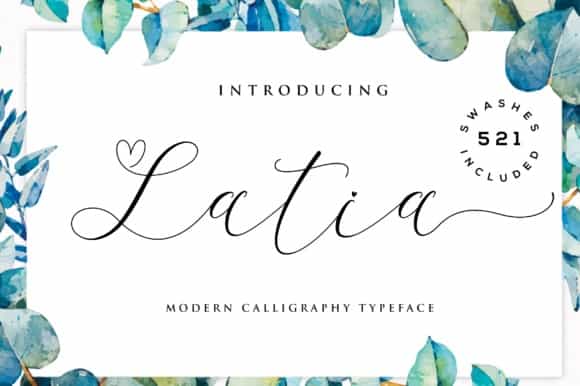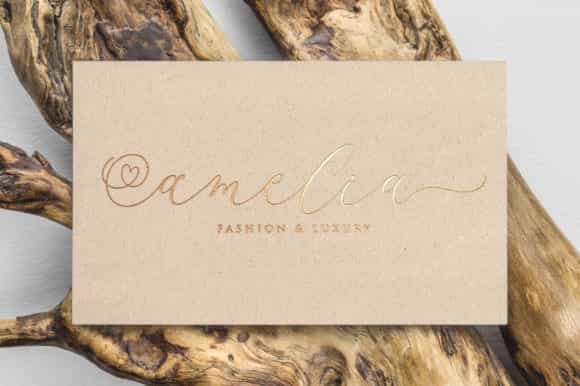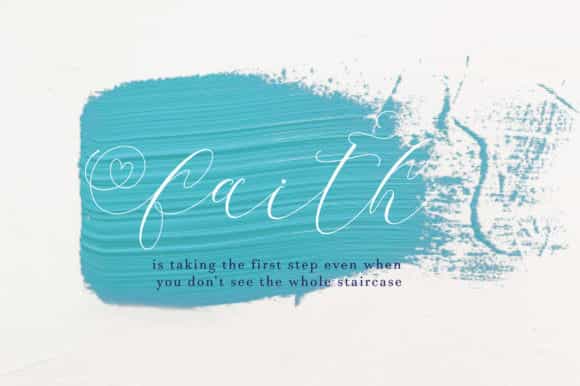
Introducing Latia is an elegant script font. Latia is perfect for adding a elegant, classy, and modern look to your designs. It’s perfect for logos & branding, invitations, stationery, wedding designs, social media posts, advertisements, product packaging, product designs, labels, photography, watermarks, special events, or anything.